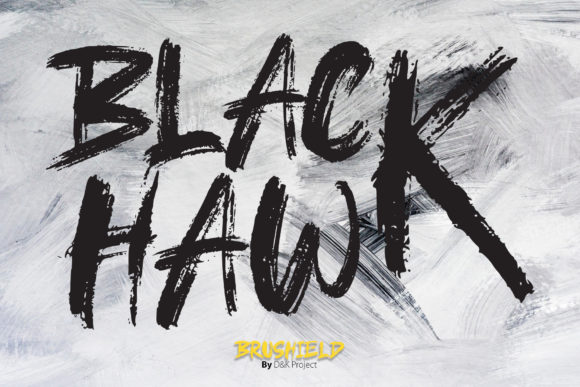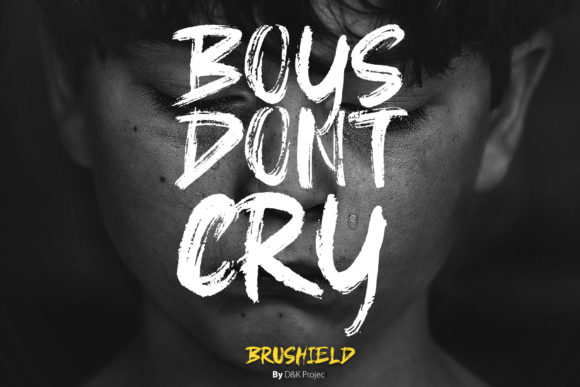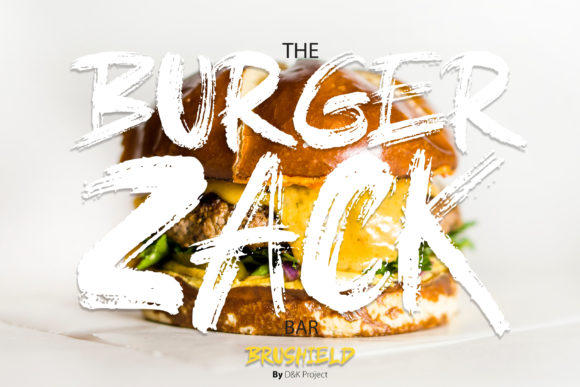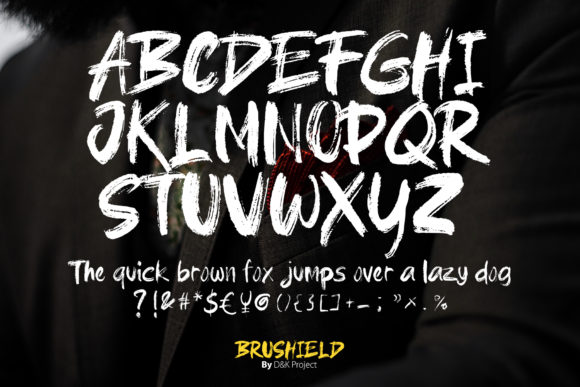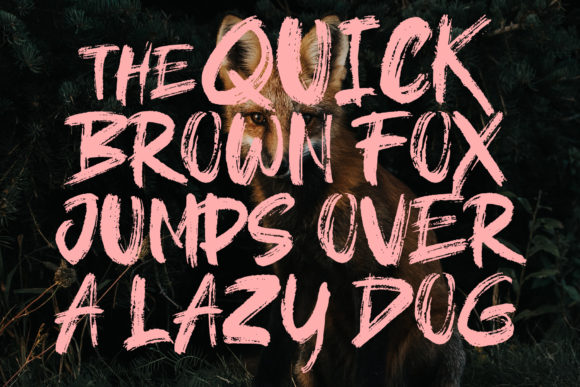
Brushfield Font
About Brushfield Font
Brushfield is a sweet and cool handwritten font with a unique feel. It will turn any design project into a true standout!